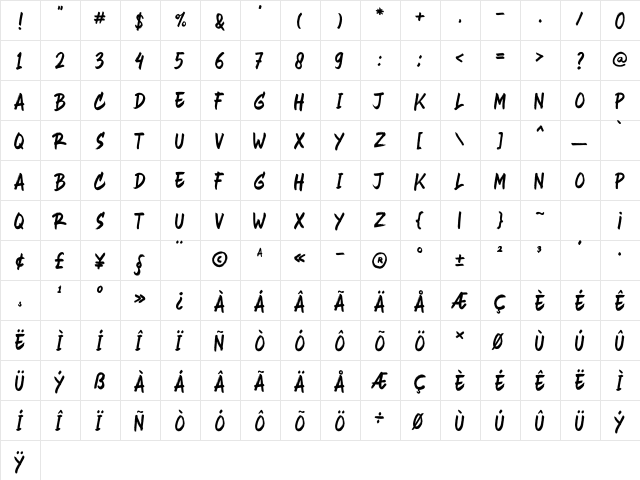
Heavy Black Regular
Design Context for Heavy Black Typeface
Heavy Black is a composed and adaptable typeface that performs quietly and consistently across a wide range of design contexts.